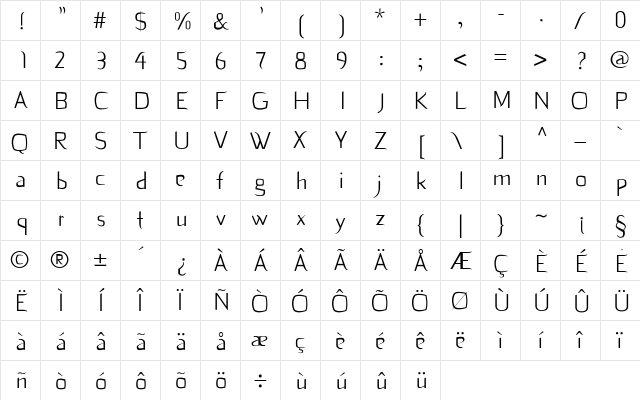
dekiru Regular
| Foundry | Laura I. Luppani |
| Designer | Laura I. Luppani |
Design Context for dekiru Typeface
dekiru offers clean, dependable letterforms without strong stylistic allegiance, making it a practical choice for designers who need flexibility.